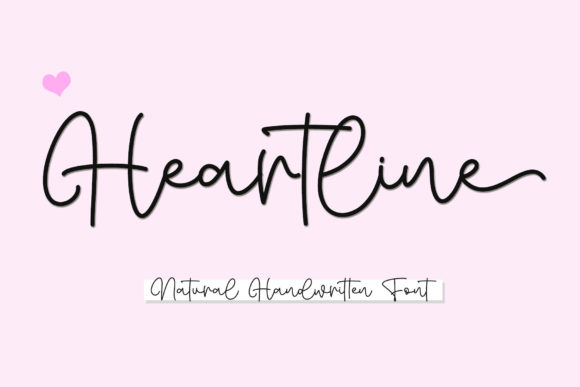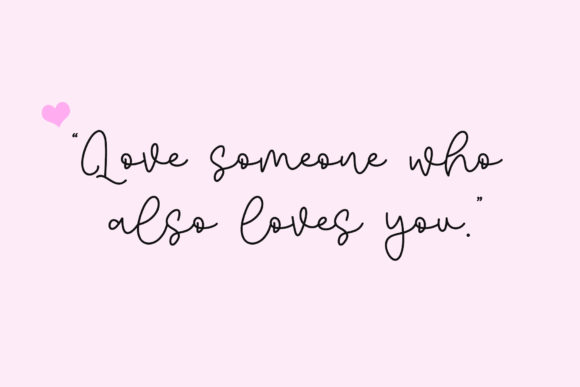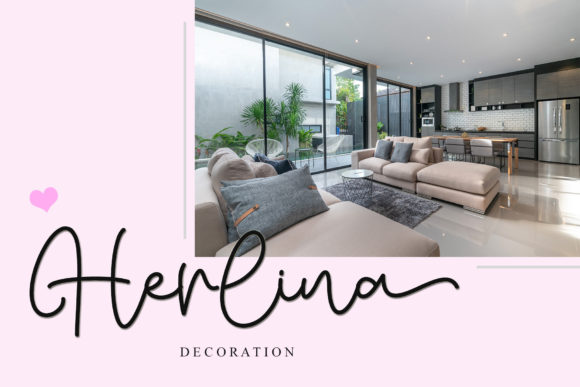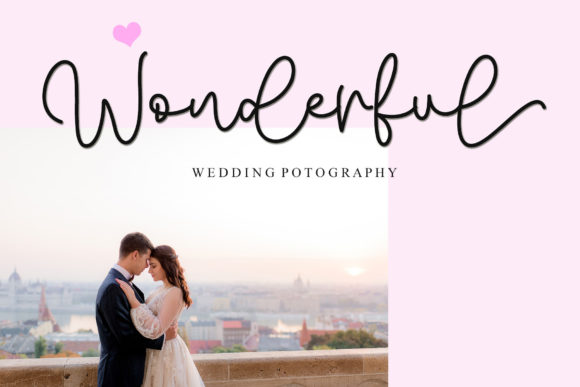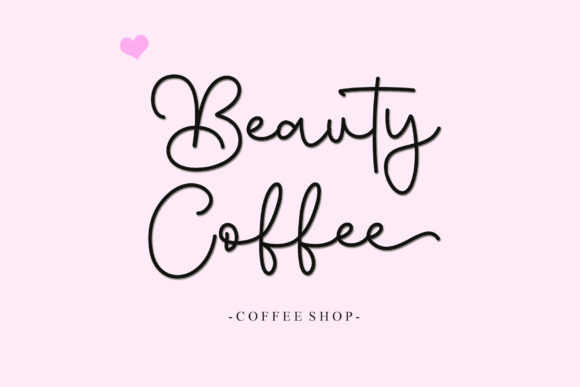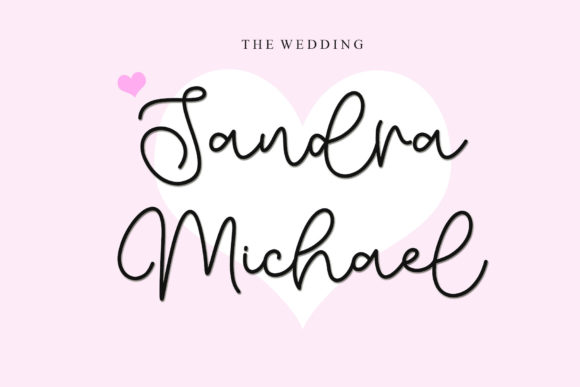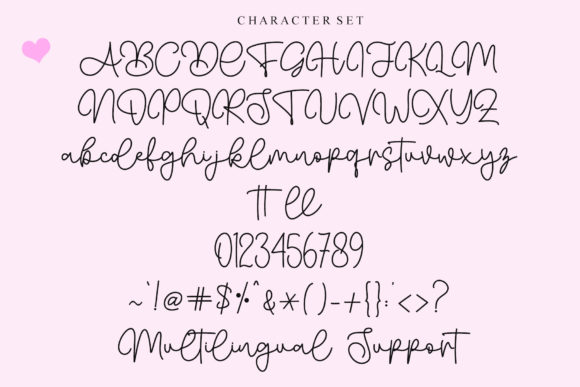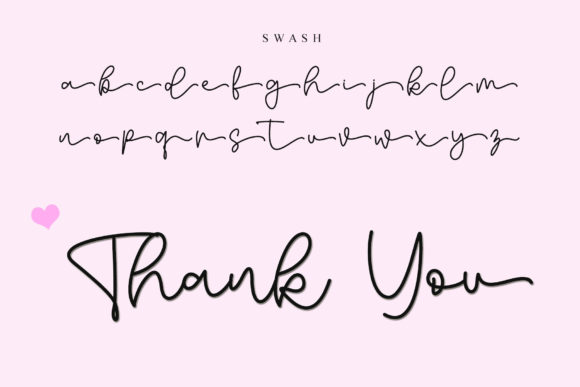
Heartline Font
About Heartline Font
Heartline is a simple, thin lettered and flowing handwritten font. This adaptable font will look great on a variety of design ideas. It will add a fun and friendly touch to each of your projects!